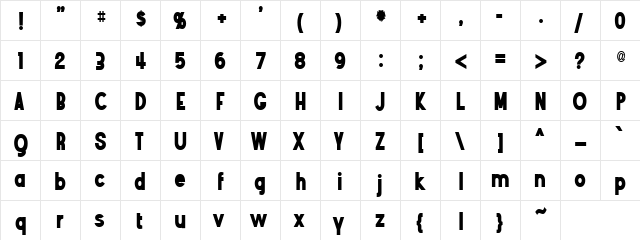
Angostura Black Regular
Design Context for Angostura Black Typeface
Angostura Black takes a measured approach to typography — its balanced proportions and neutral character make it a reliable workhorse for both digital and print work.